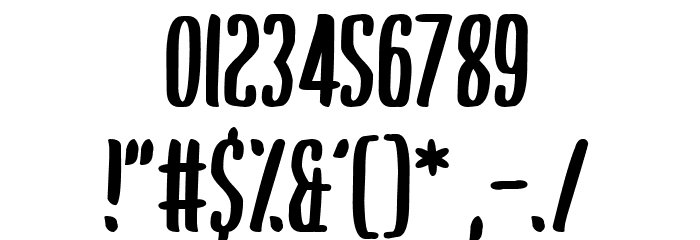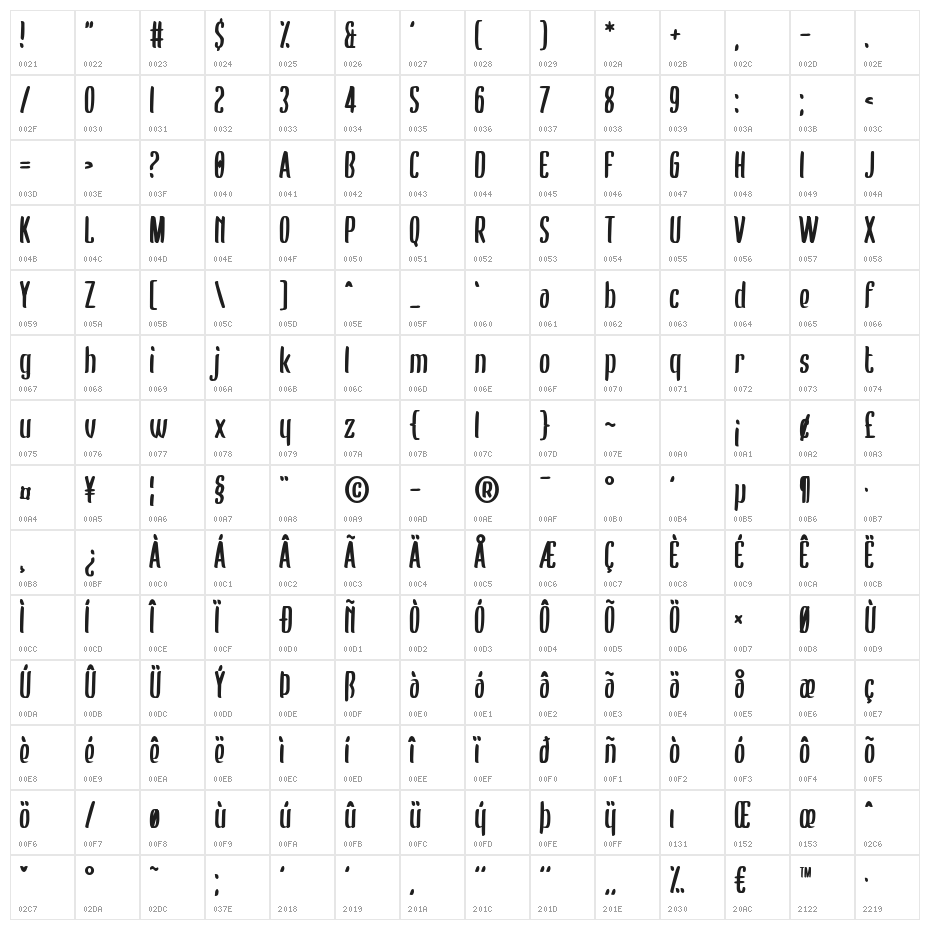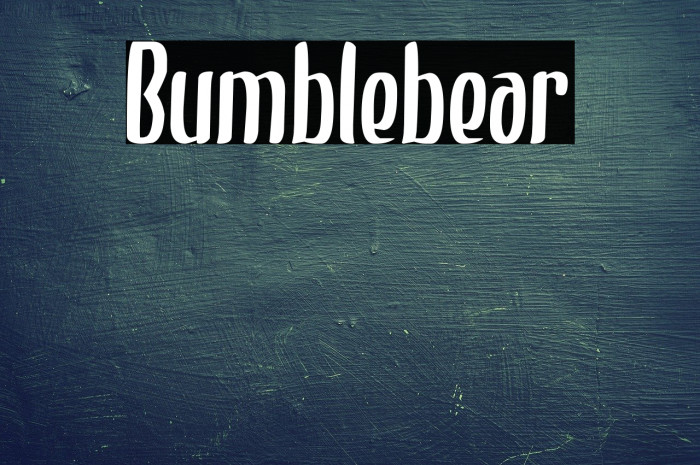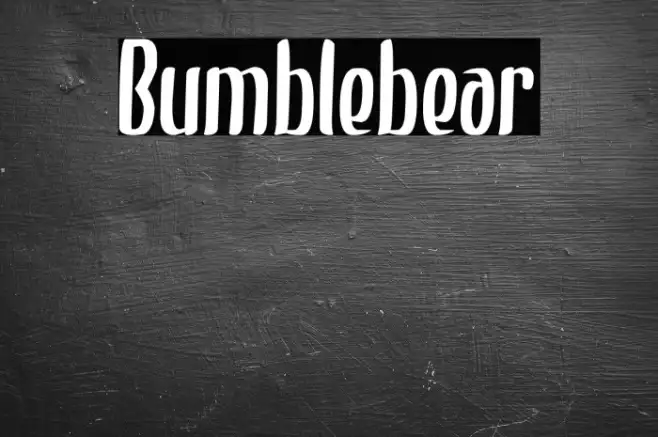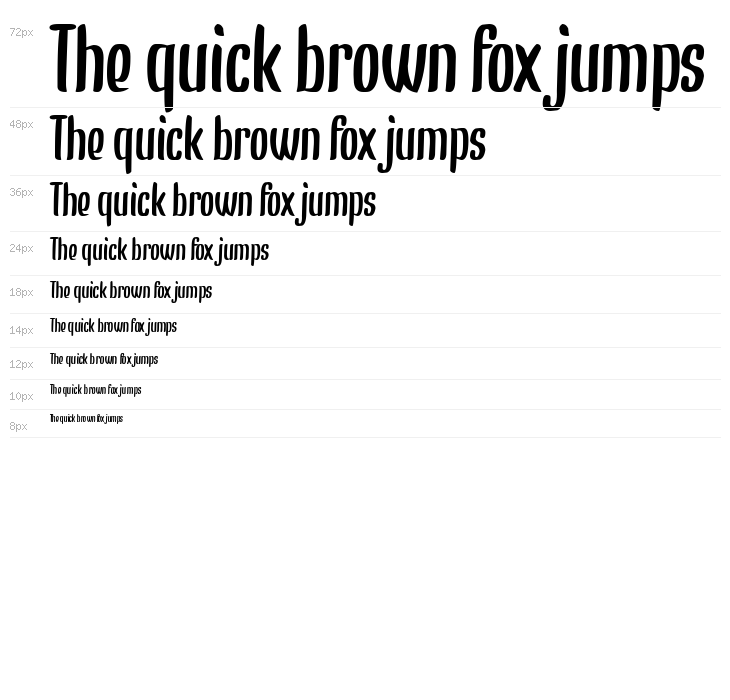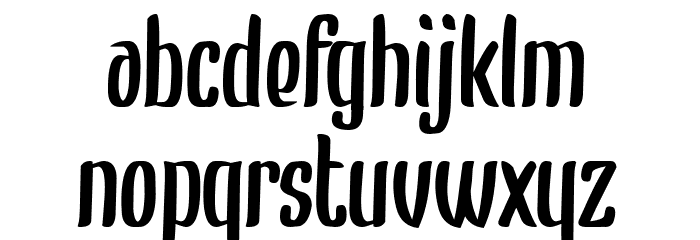
Bumblebear Font
Bumblebear Description
This font features a playful and bold style with rounded edges and a slightly condensed appearance. The uppercase letters are tall and maintain a consistent height, while the lowercase letters are slightly shorter, adding a whimsical touch. The numbers are well-proportioned and align with the overall aesthetic, making them easy to read. Special characters are included and match the playful style of the alphabet. The strokes are consistent in width, providing a uniform look across all characters. This font is ideal for projects that require a fun and engaging typeface.